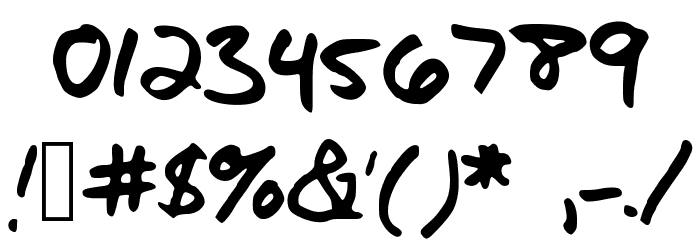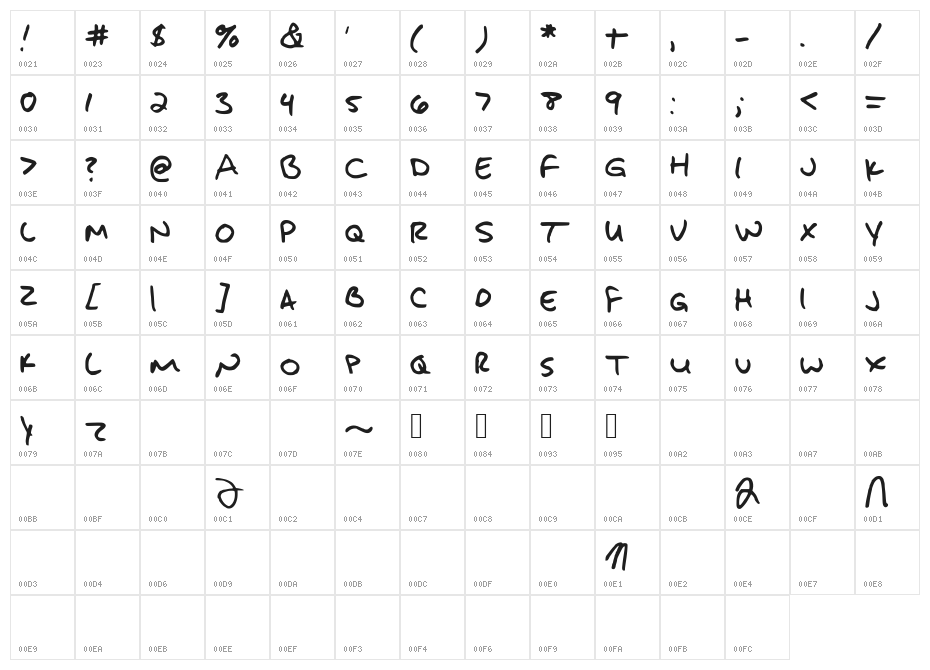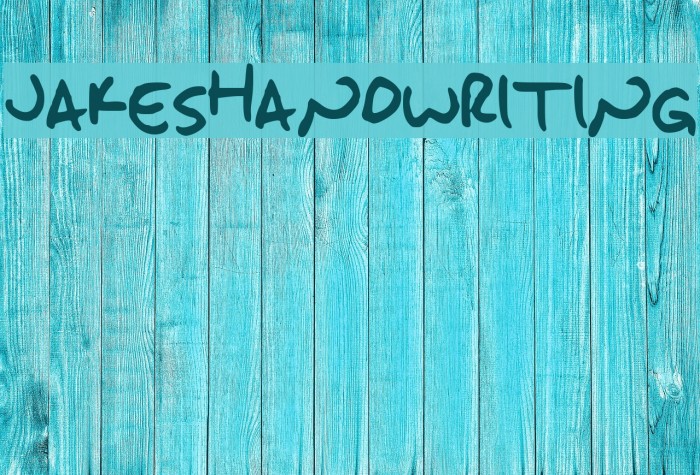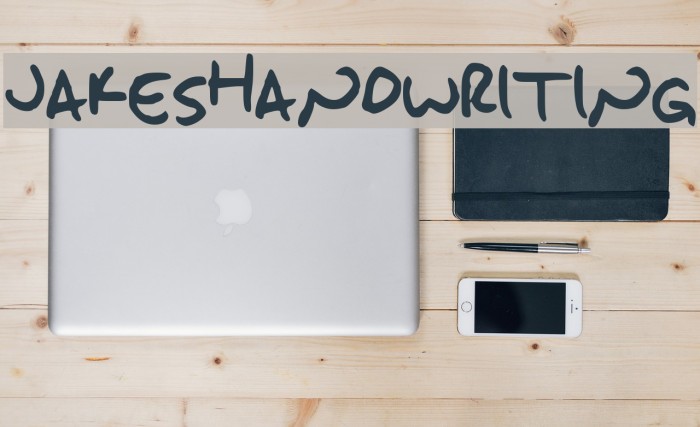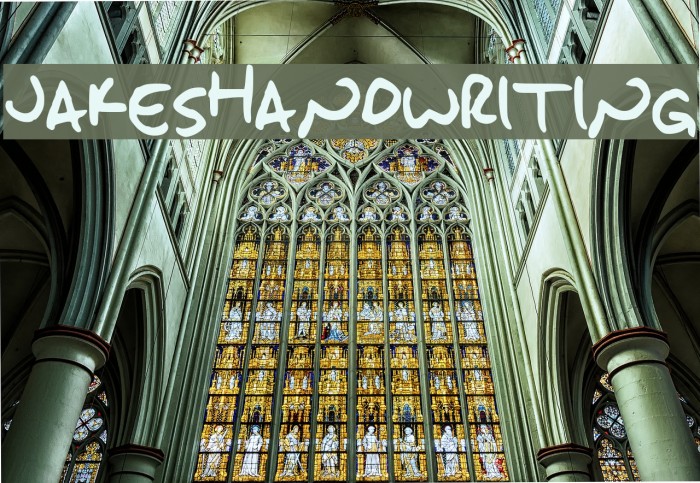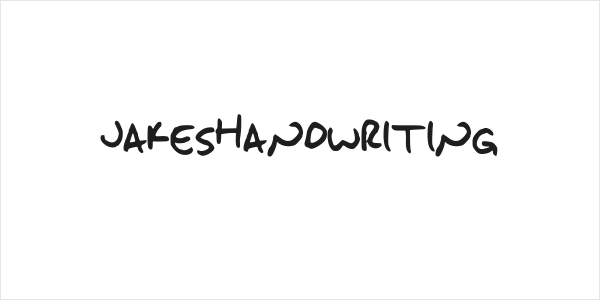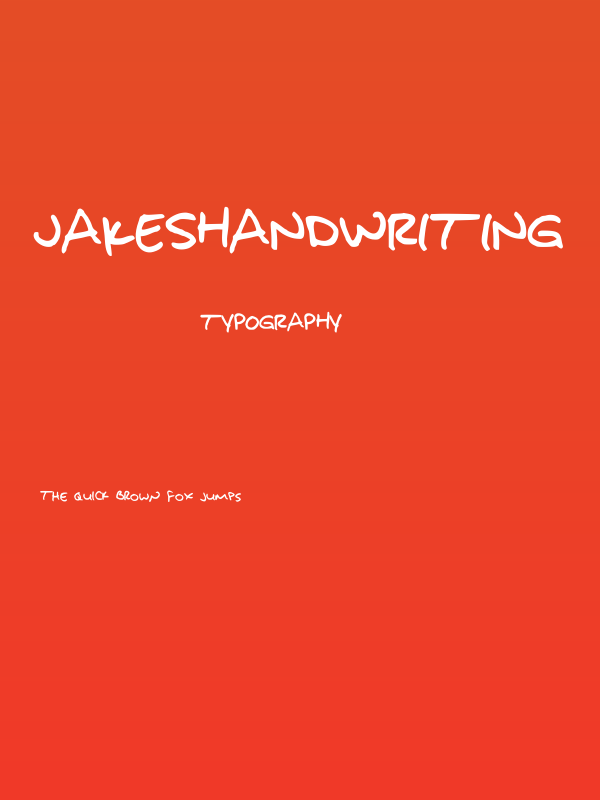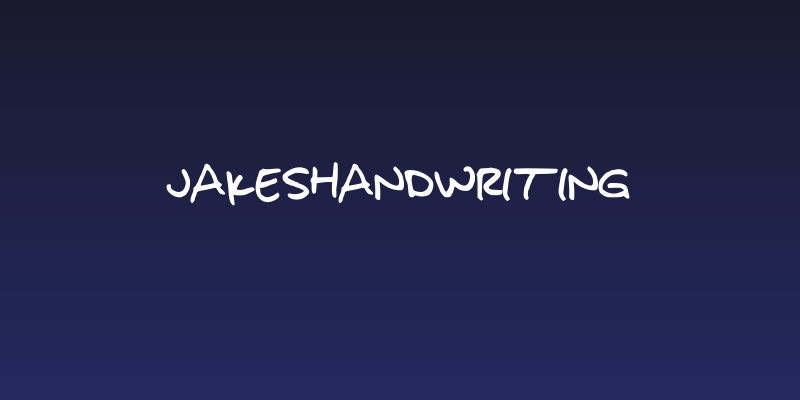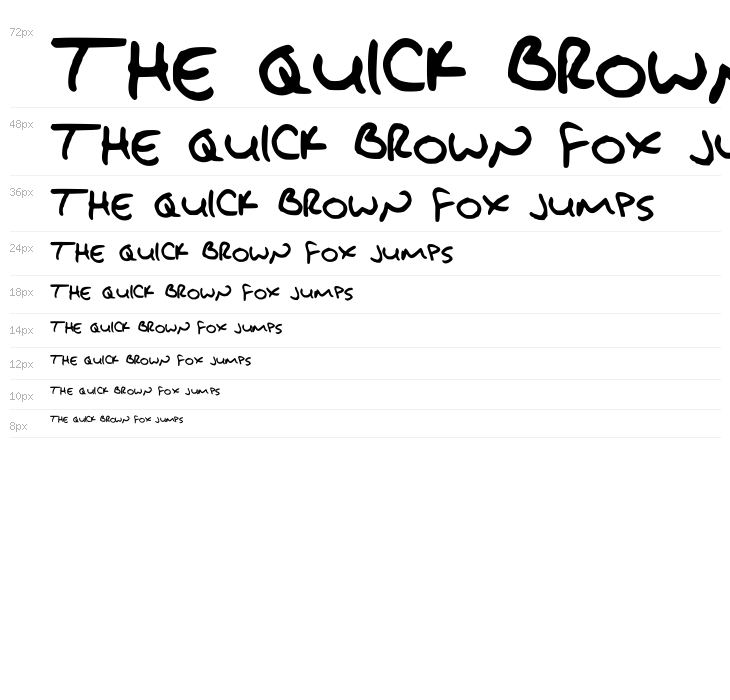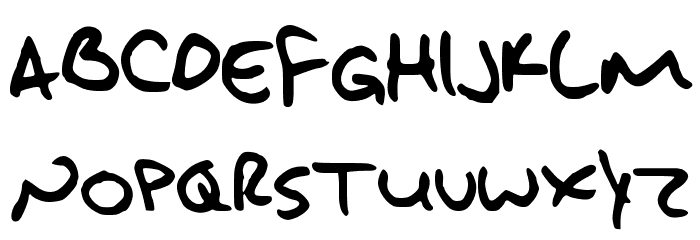
JakesHandwriting Font
JakesHandwriting Description
This font exudes a casual and personal touch, reminiscent of authentic handwriting. The characters are bold and slightly irregular, giving them a lively and spontaneous feel. Each letter is distinct, with rounded edges and a consistent stroke width that maintains readability. The uppercase and lowercase letters are well-balanced, and the numbers are clear and easy to distinguish. Special characters are creatively integrated, adding to the font's versatility. This style is perfect for projects that require a personal or informal tone, such as invitations, greeting cards, or creative branding.
| Overall Style | Casual, Personal |
| Proposed Projects | Ideal for personal invitations, greeting cards, creative branding, and informal communication. |